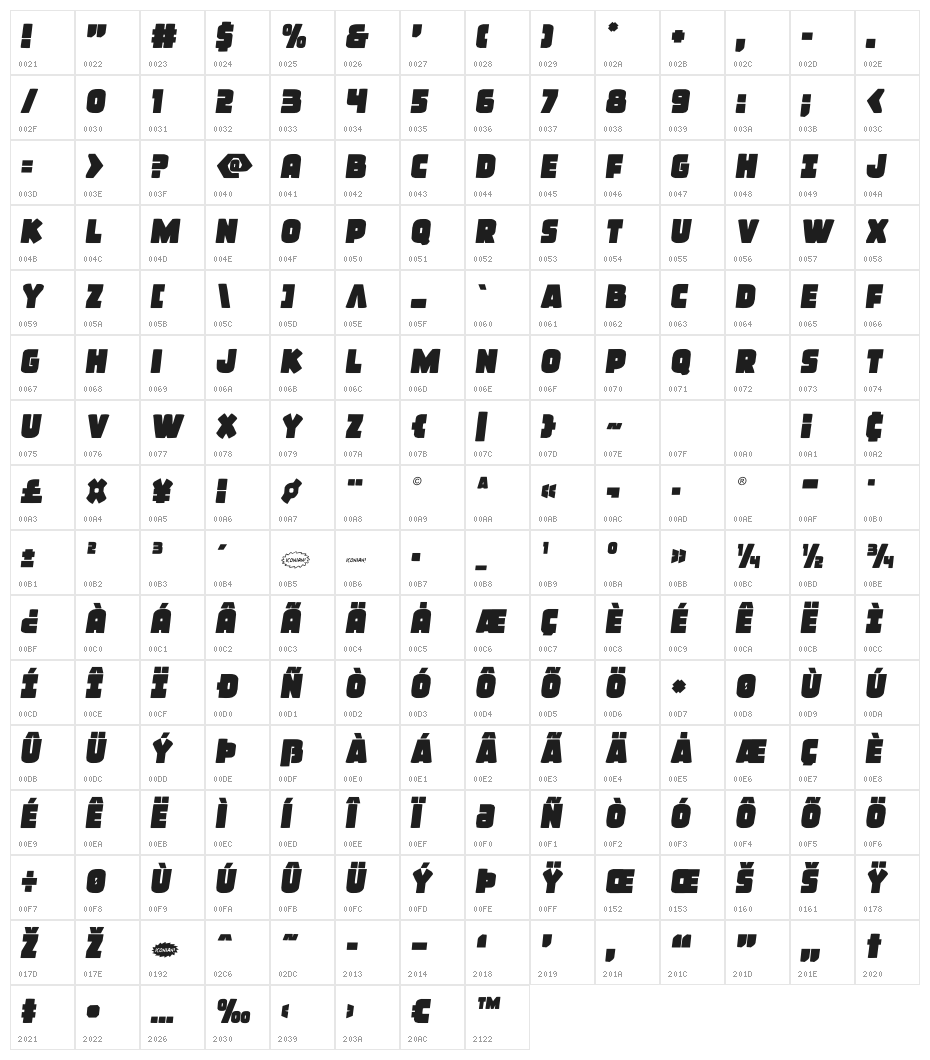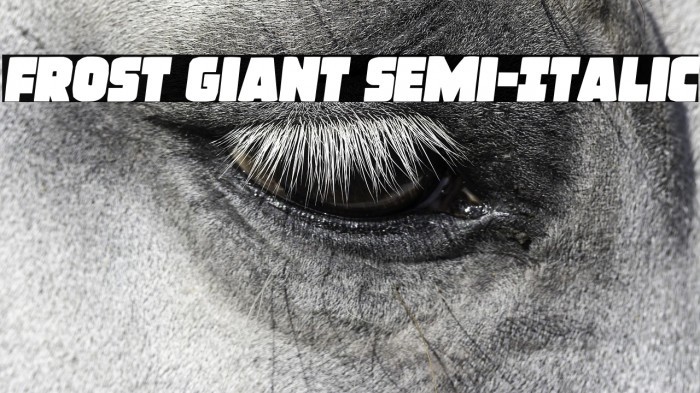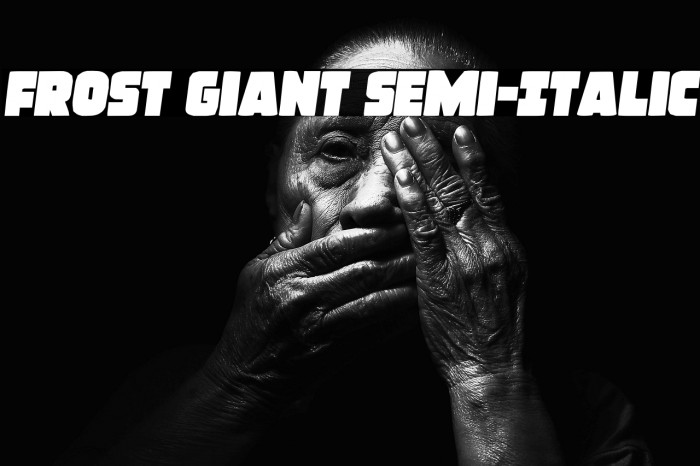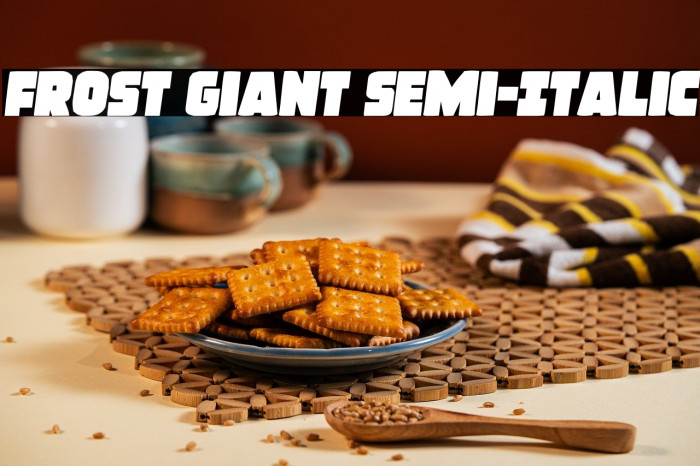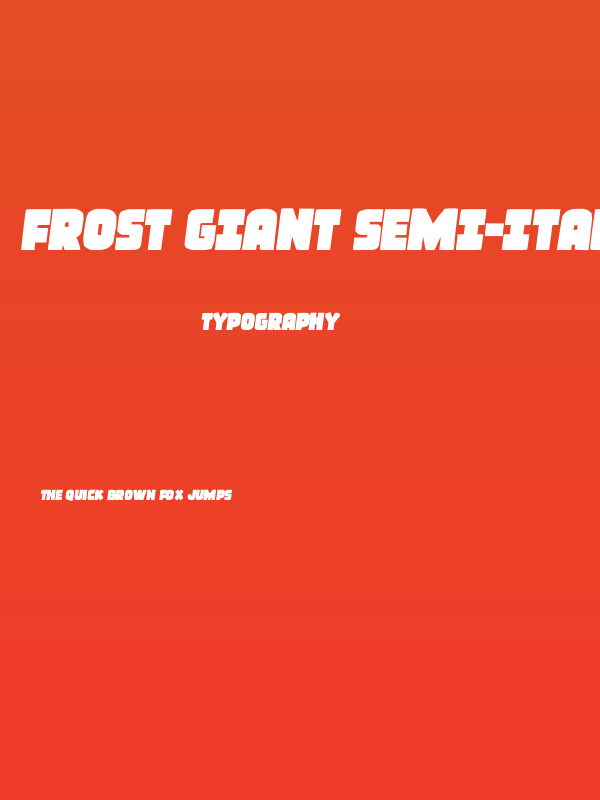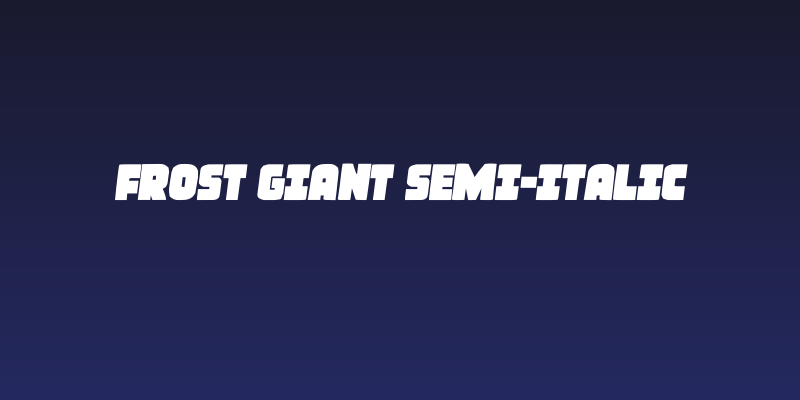
Frost Giant Semi-Italic Font
Frost Giant Semi-Italic Description
This font features bold, blocky characters with a strong presence, making it ideal for impactful designs. The semi-italic style adds a dynamic slant to the letters, enhancing their visual appeal. The uppercase and lowercase letters maintain a consistent weight, contributing to a cohesive look across different text sizes. The numbers and special characters are designed with the same boldness, ensuring uniformity throughout. The font's thick strokes and minimal contrast create a robust and sturdy appearance, suitable for attention-grabbing headlines and logos.
| Proposed Projects | Ideal for posters, headlines, logos, and branding materials that require a strong visual impact. |